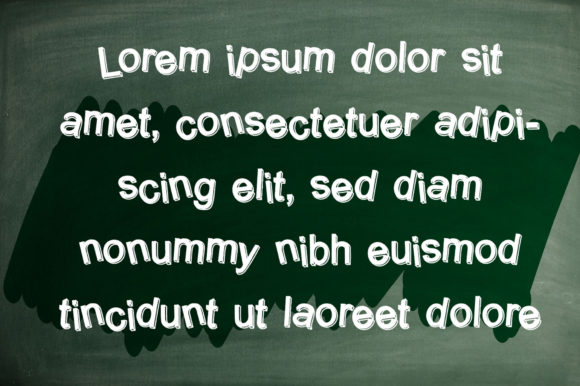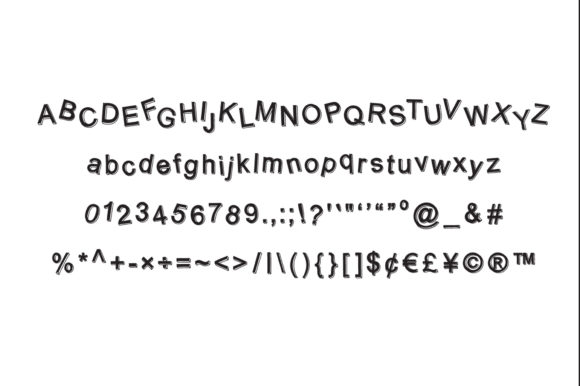
Introduction to Kids 3D Outline Mess Black Font
Kids 3D Outline Mess Black is a fun, cartoon-like display font, that can be used for all chalkboard quotes or teaching material.
Its authentic look will add a personal and realistic feel to your designs .
Why Choose Kids 3D Outline Mess Black Font?